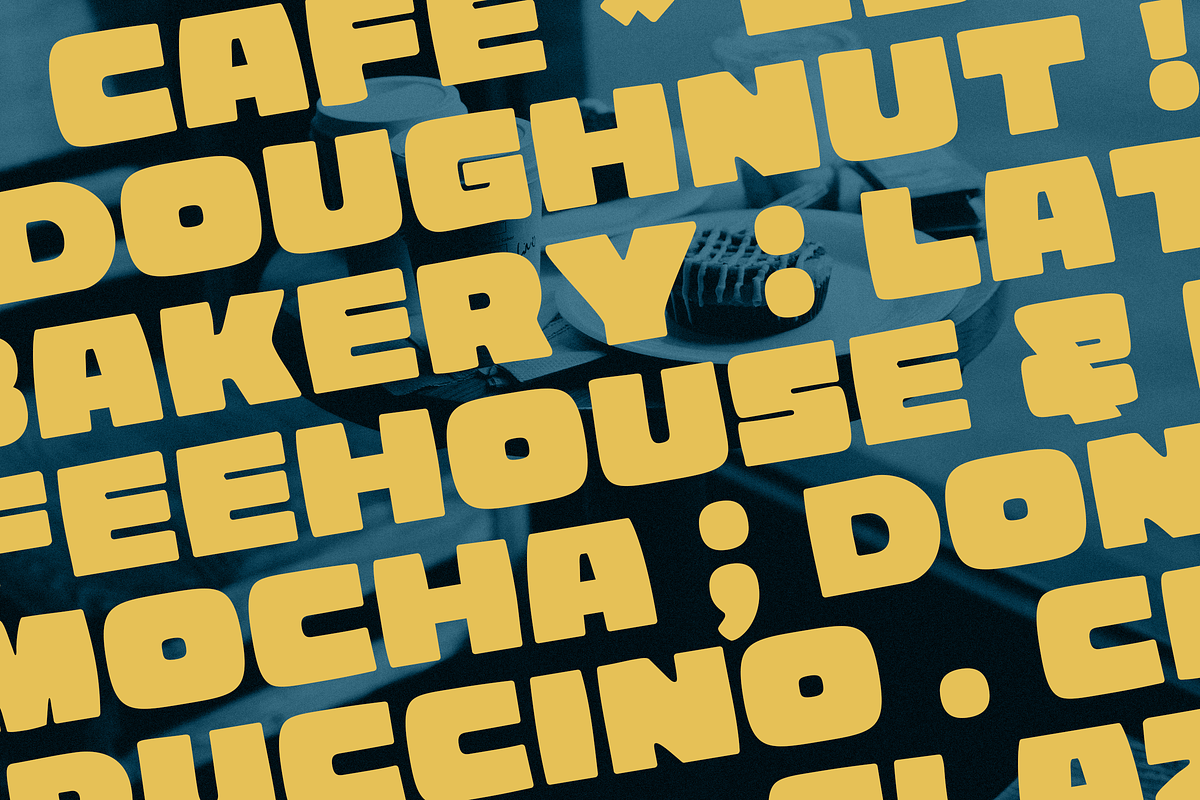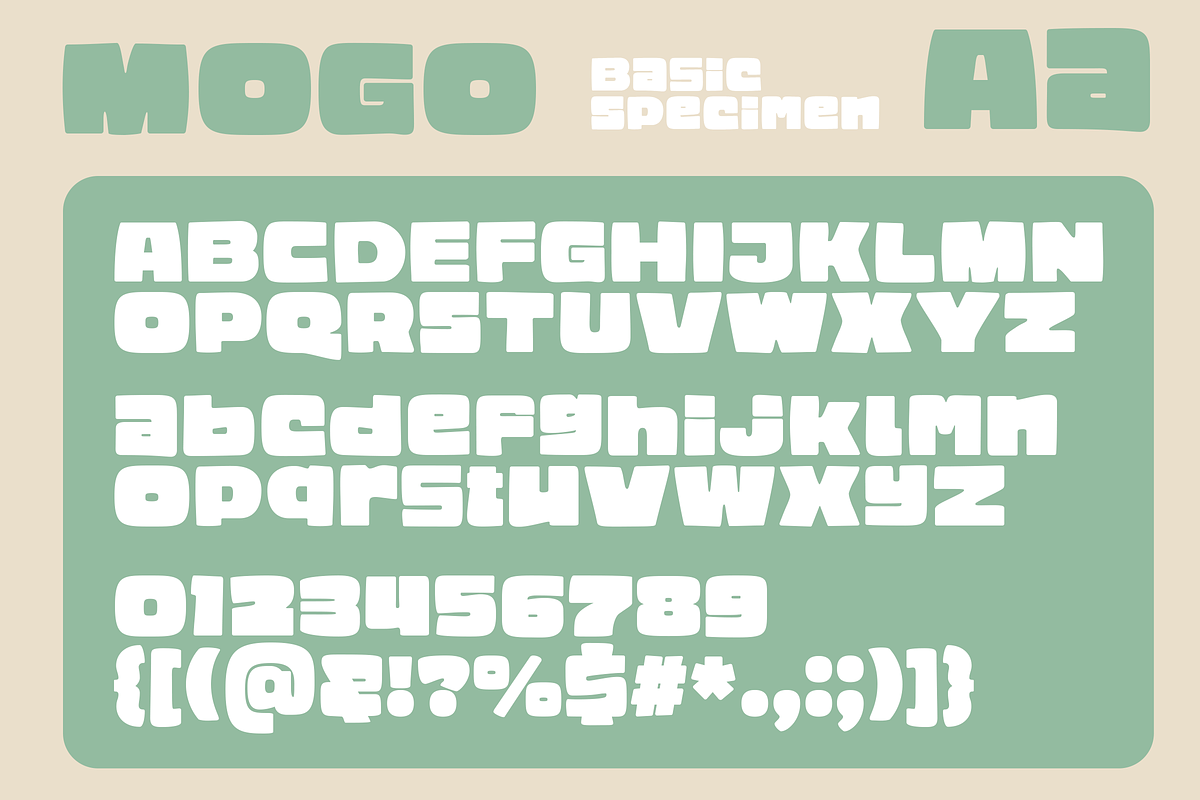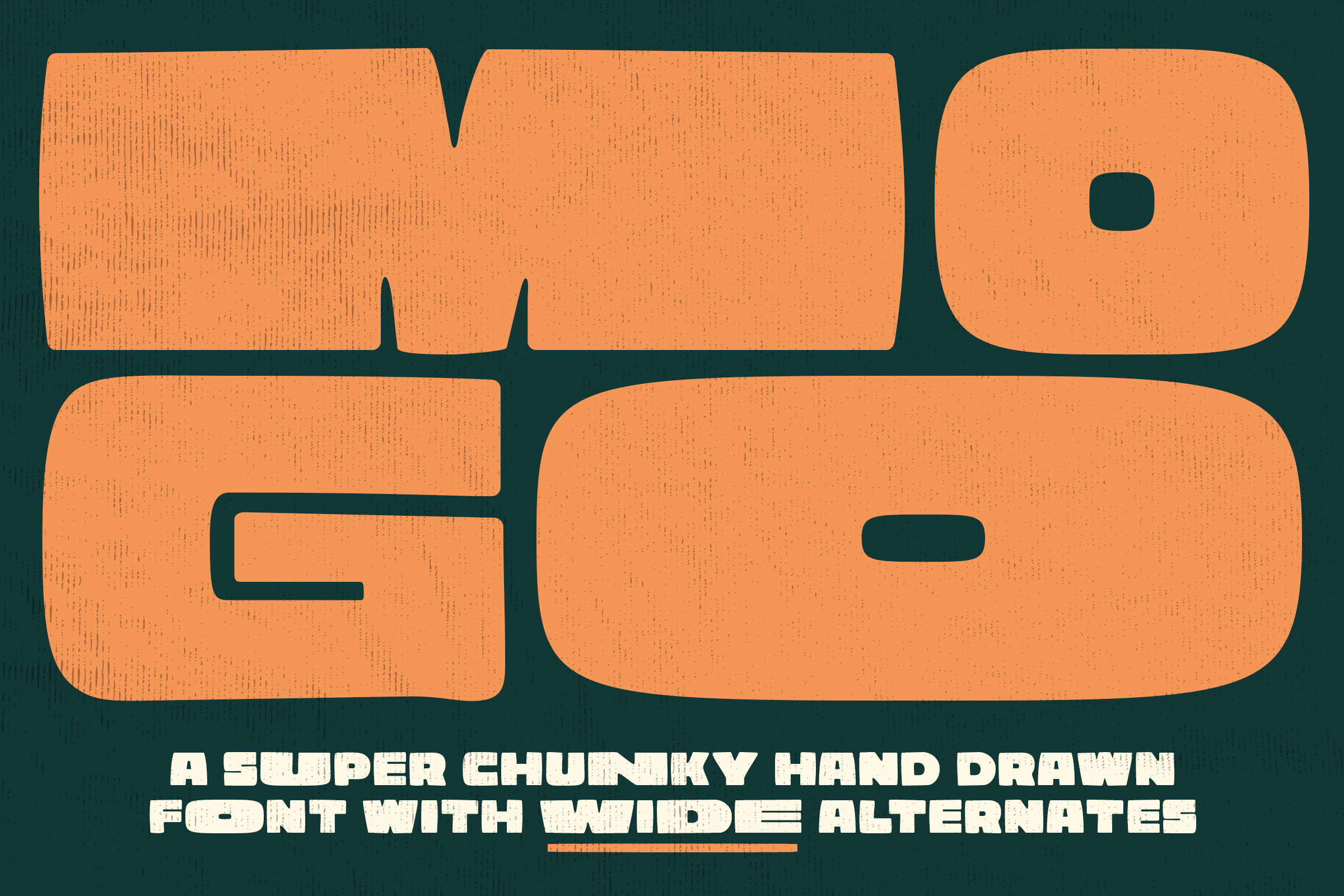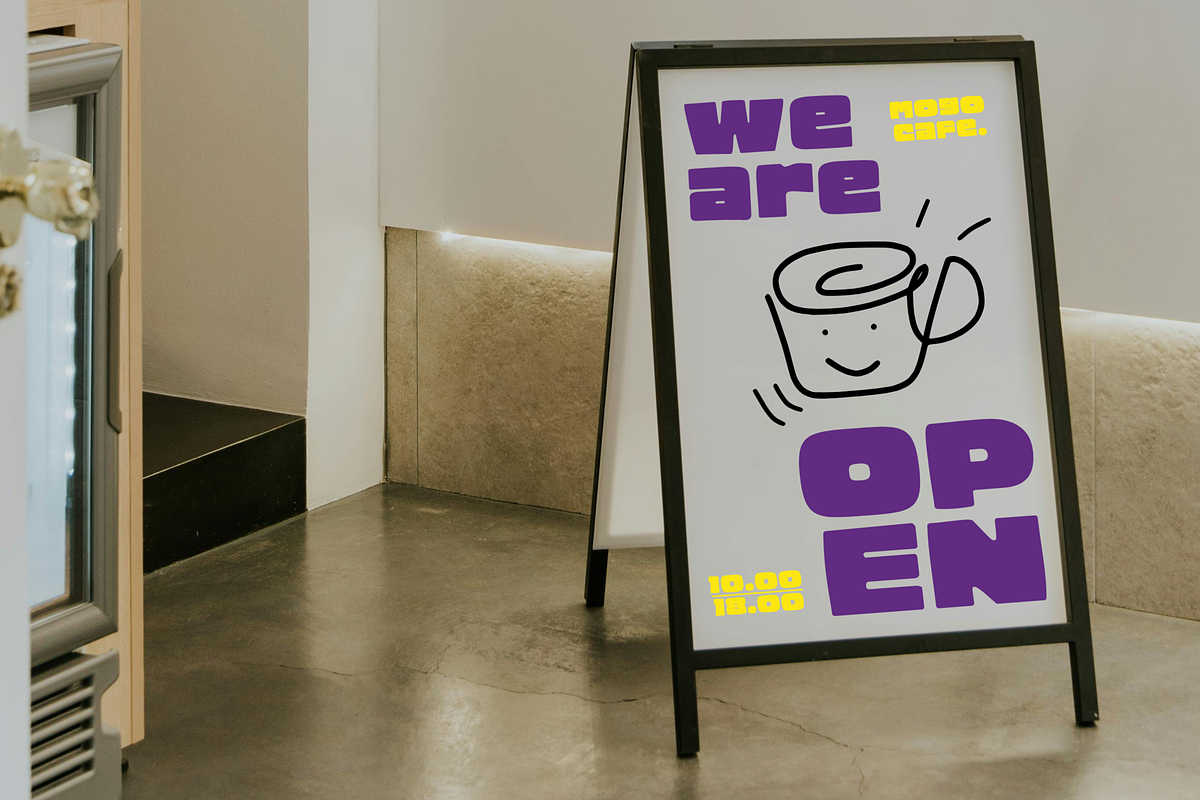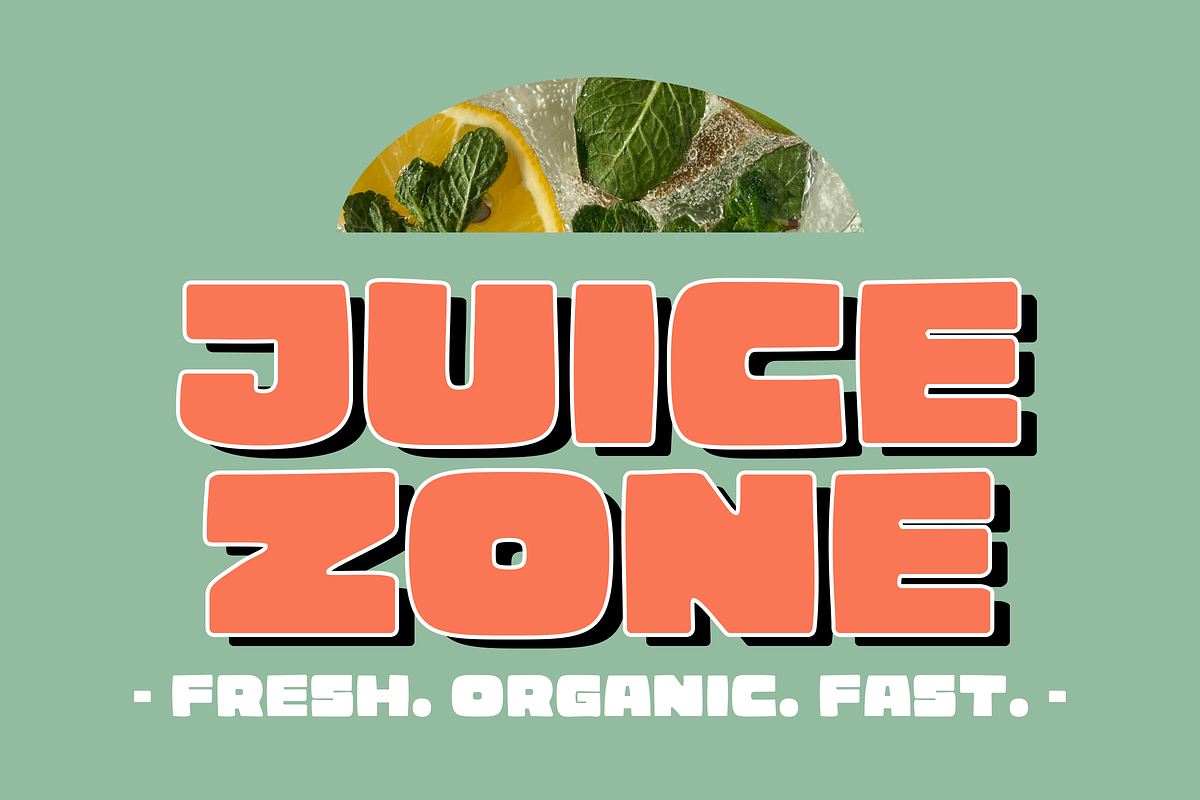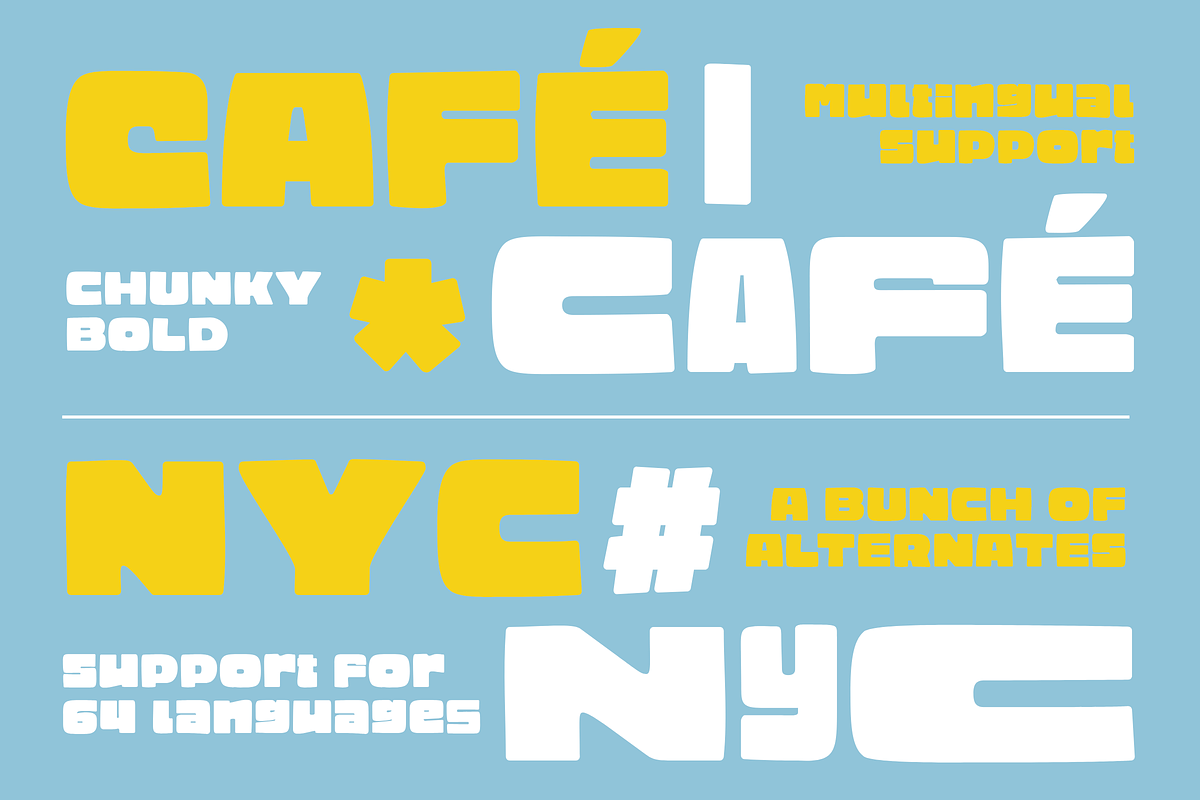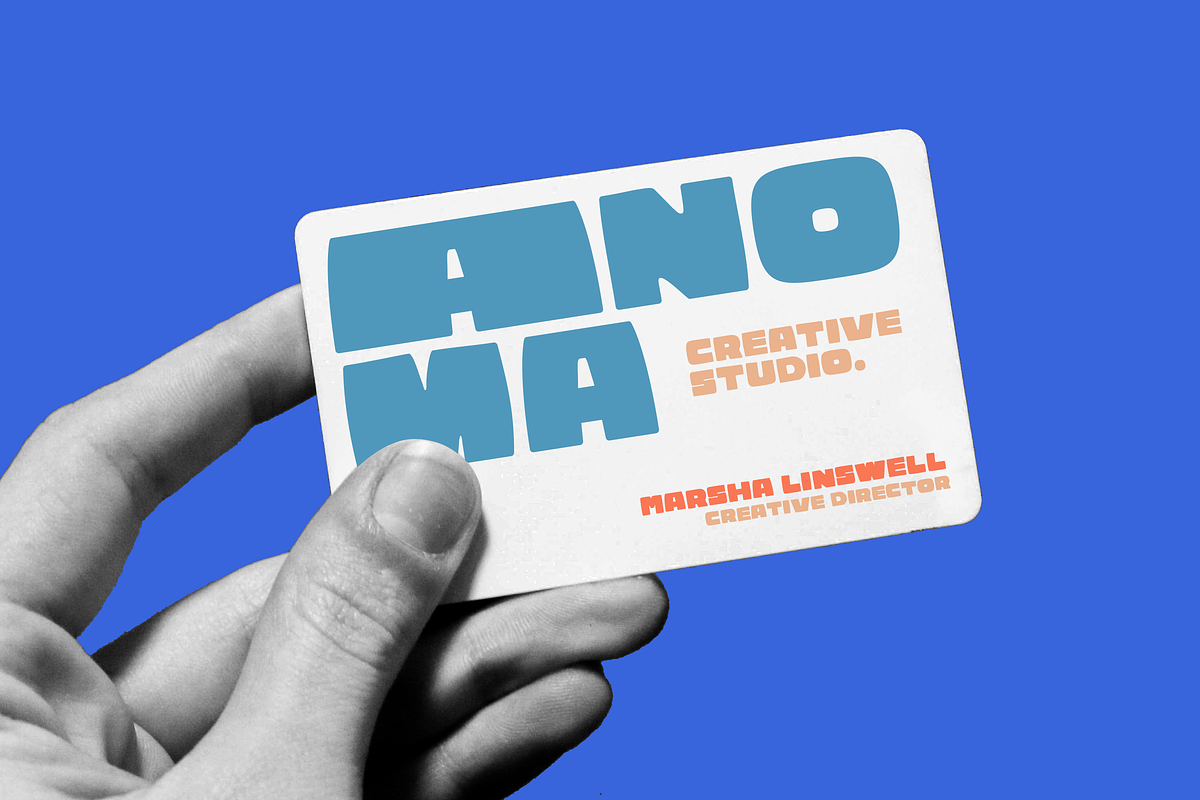
MOGO - Super Chunky Hand Drawn Font
MOGO is a super chunky hand drawn typeface that features 3 sets of characters in a variety of widths. No matter what you're working on, you'll be able to fill er' up. Its oversized letterforms and friendly curves give it a loud personality that feels both retro and fresh.
MOGO includes uppercase and lowercase characters, numbers, punctuation, and 2 sets of wide alternates for added variety. The hand-drawn roughness adds warmth and charm, making it perfect for posters, packaging, headlines, branding, and anything that needs to stand out.
Bring big energy and character to your next creative project with MOGO.